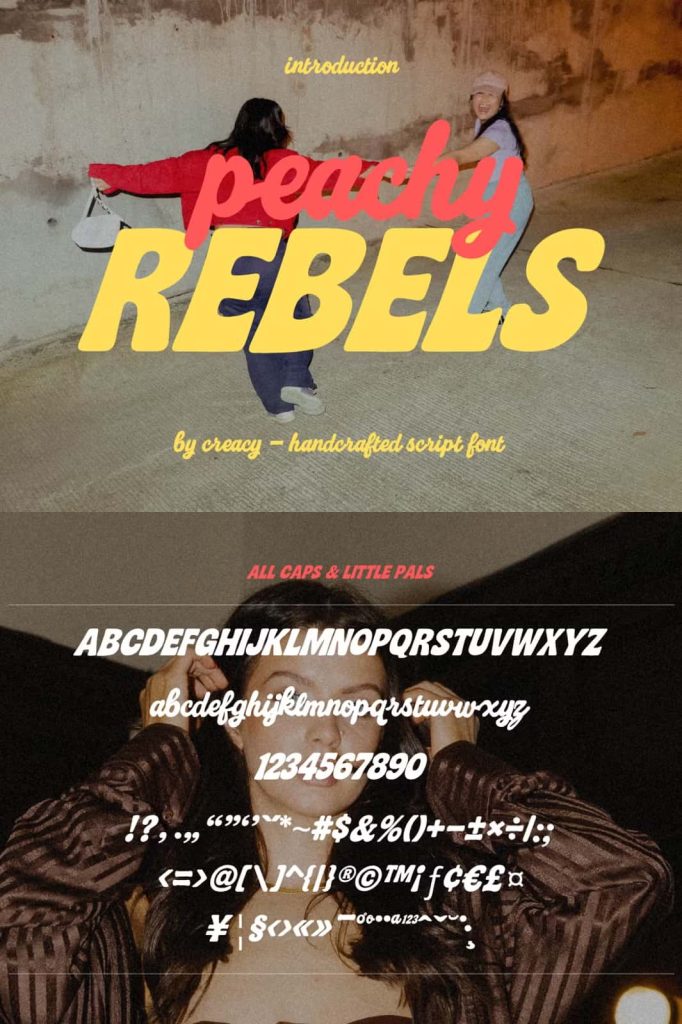
Peachy Rebels Playful Font Duo
Peachy Rebels delivers a bold and expressive font duo that instantly adds personality and energy to your creative projects. This unique typeface pairing combines a strong uppercase sans serif with a smooth and charming lowercase script, allowing designers to create eye-catching compositions with ease. Built with a retro-inspired aesthetic, Peachy Rebels captures a carefree spirit while maintaining a modern edge that fits today’s design trends.
A Dynamic Combination of Strength and Charm
Peachy Rebels stands out by blending two distinct styles into one cohesive font system. The uppercase sans serif commands attention with its bold structure, clean lines, and confident presence. It creates strong headlines and powerful statements that immediately draw the viewer’s eye.
In contrast, the lowercase script introduces a playful and relaxed tone. Its fluid strokes and handwritten feel soften the overall design, adding warmth and personality. When combined, these two styles create a balanced visual harmony that feels both energetic and approachable.
Designed for Creative Flexibility
Peachy Rebels gives designers the flexibility to experiment with typography in creative ways. You can use the sans serif for structure and clarity while incorporating the script to highlight key words or add expressive accents. This active combination allows you to build layered designs that feel dynamic and engaging without overwhelming the viewer.
Perfect for Bold Branding Projects
Peachy Rebels empowers brands to stand out with confidence. Its retro personality and vibrant character make it an excellent choice for businesses that want to express individuality and creativity. Whether you are building a new brand identity or refreshing an existing one, this font duo helps communicate a strong and memorable message.
Designers can use Peachy Rebels to craft logos, brand marks, and promotional materials that feel distinctive and full of life. The bold sans serif establishes authority, while the script adds a friendly and relatable touch that connects with audiences.
Create Memorable Visual Identities
With Peachy Rebels, you can shape brand identities that leave a lasting impression. The font duo encourages playful experimentation while maintaining visual consistency. This makes it easier to develop cohesive branding across multiple platforms, from print materials to digital experiences.
Enhance Packaging with Retro Energy
Peachy Rebels brings a lively and nostalgic vibe to packaging design. Its retro-inspired look helps products stand out on shelves and attract attention quickly. The bold lettering ensures readability from a distance, while the script adds a handcrafted feel that enhances product appeal.
Designers can actively use this font duo to highlight product names, slogans, and key information in a visually engaging way. This combination helps create packaging that feels unique, fun, and memorable to customers.
Elevate Social Media Graphics
Peachy Rebels works exceptionally well for social media content where visual impact matters most. The bold and playful style helps posts capture attention in fast-scrolling environments. Whether creating promotional banners, quotes, or campaign visuals, this font duo ensures your message stands out.
By mixing the uppercase and script styles, you can design content that feels fresh and expressive. This approach encourages interaction and helps build a stronger connection with your audience.
Adaptable for Various Creative Projects
Peachy Rebels adapts easily to a wide range of creative applications beyond branding and social media. You can use it for posters, invitations, merchandise, editorial layouts, and more. Its versatility allows designers to explore different visual directions while maintaining a consistent tone.
Bring Attitude and Personality to Every Design
Peachy Rebels injects attitude, charm, and retro flair into every project it touches. The font duo encourages bold design choices and creative expression, making it a valuable tool for designers who want to break away from ordinary typography.
By combining strong structure with playful details, Peachy Rebels helps you create designs that feel alive and engaging. It transforms simple text into a visual statement that communicates energy, creativity, and confidence.
Choose Peachy Rebels to add a fresh, retro-inspired voice to your work and create designs that truly stand out in today’s competitive visual landscape.